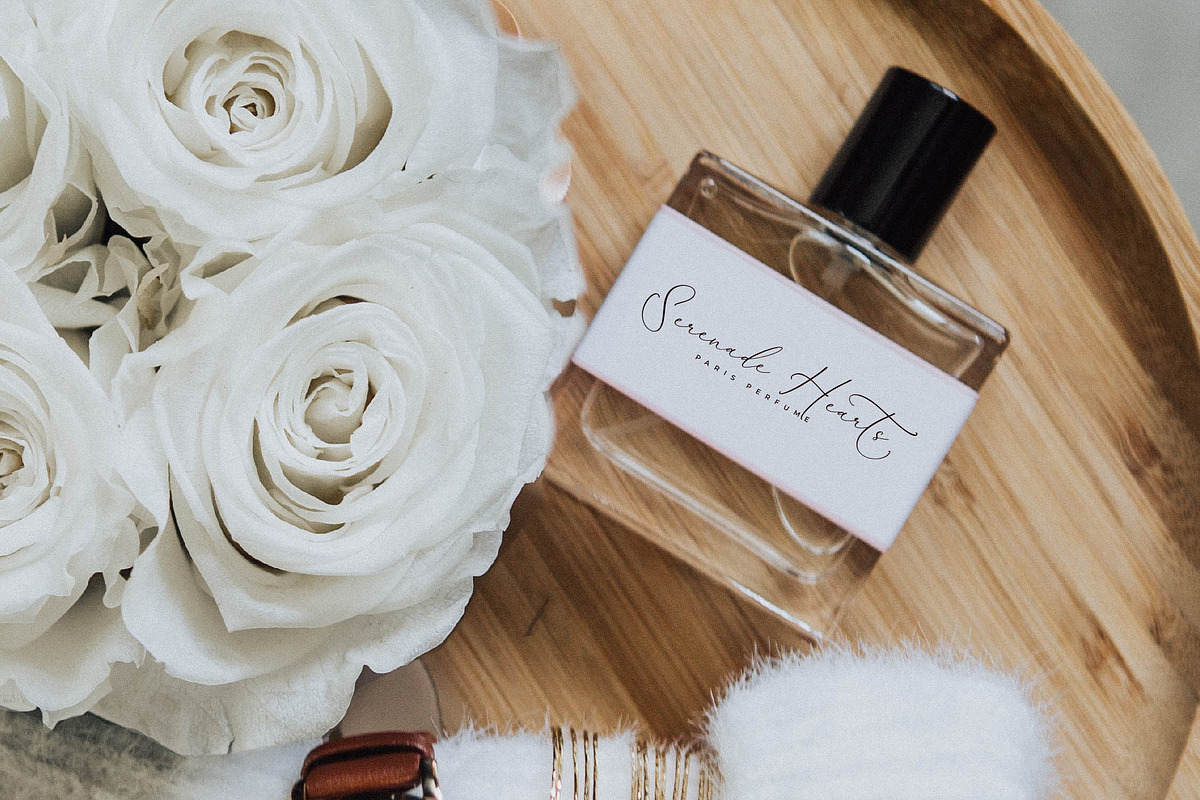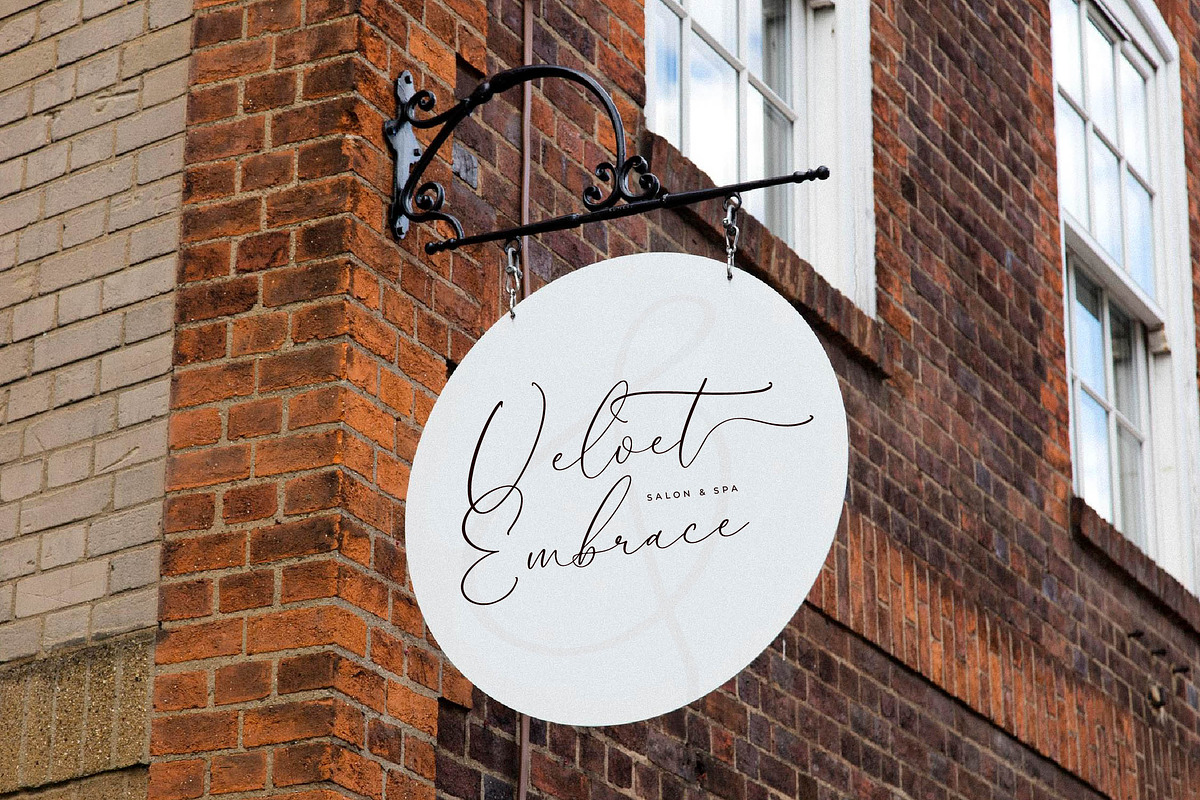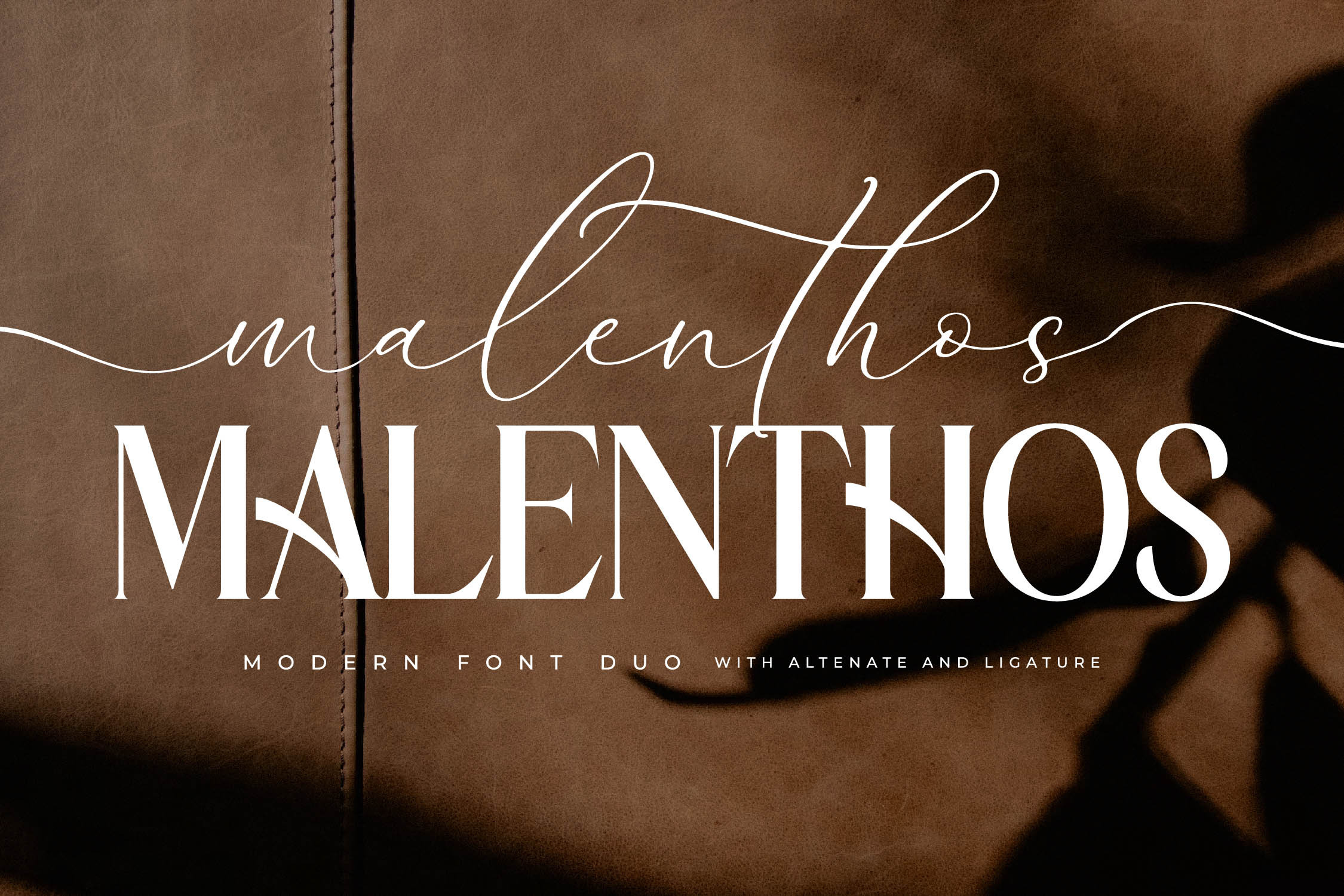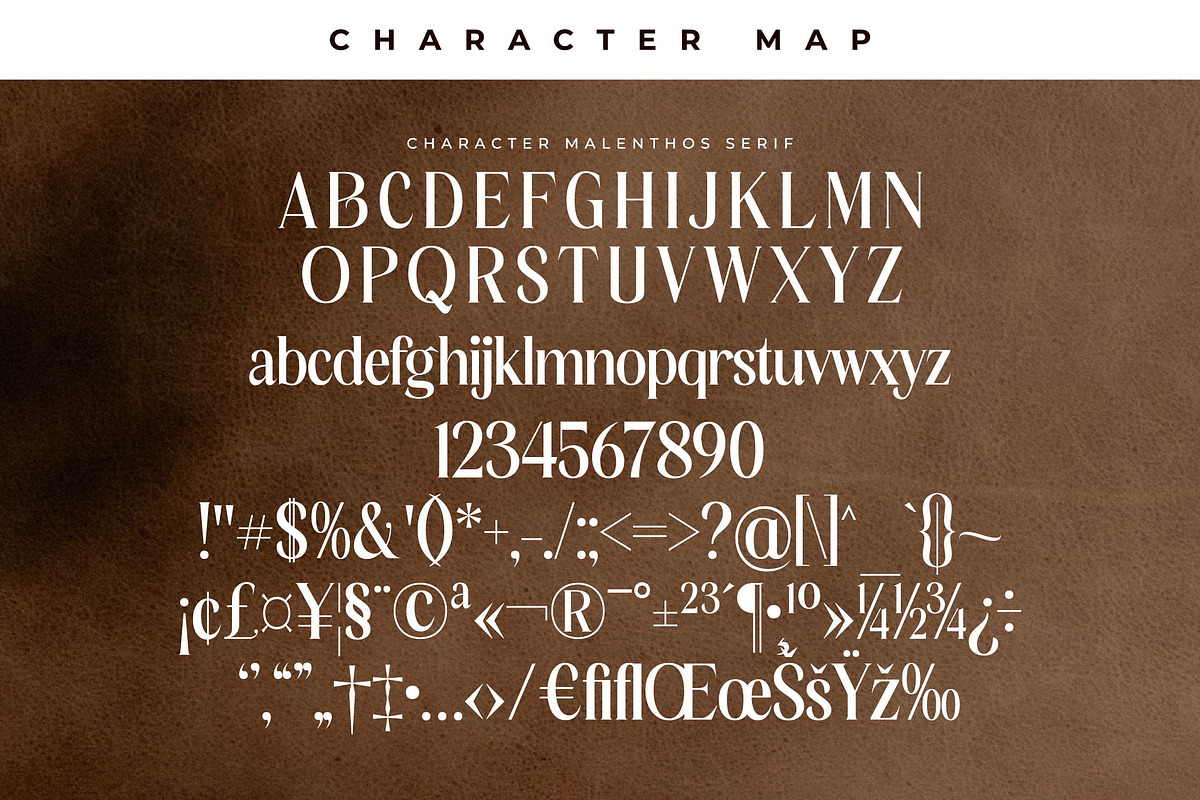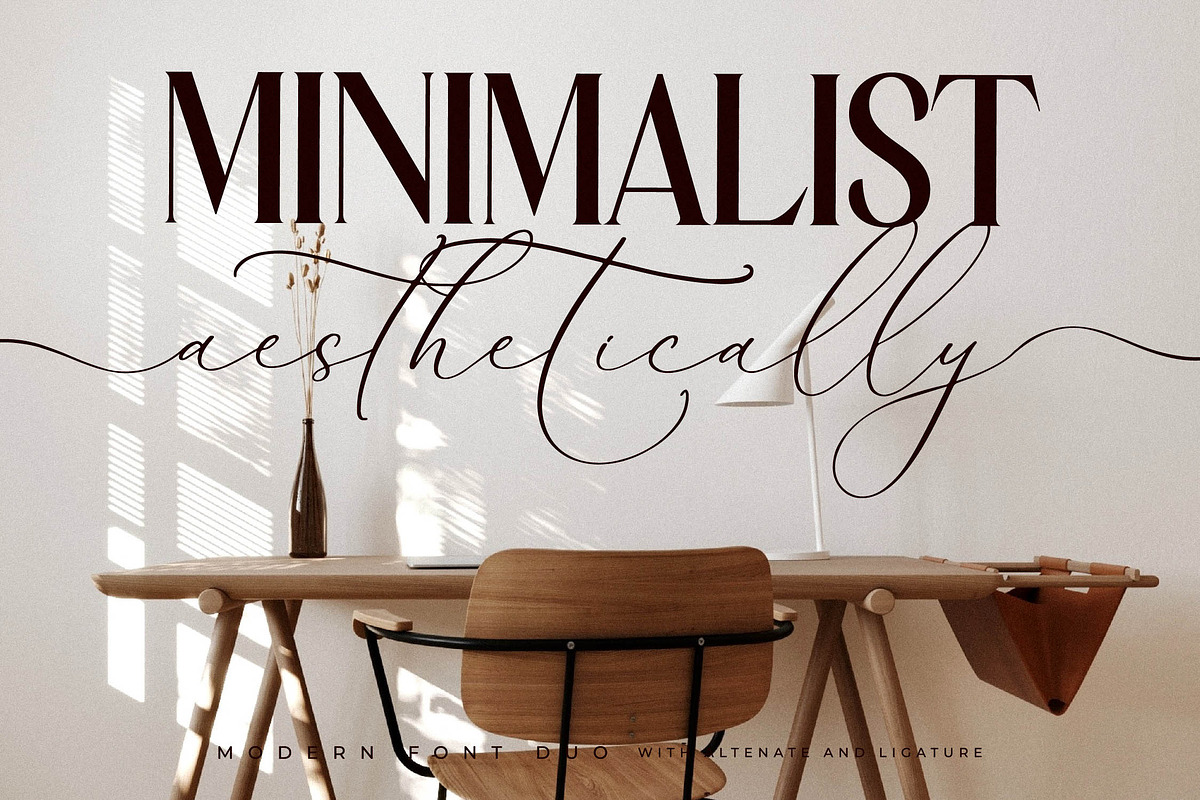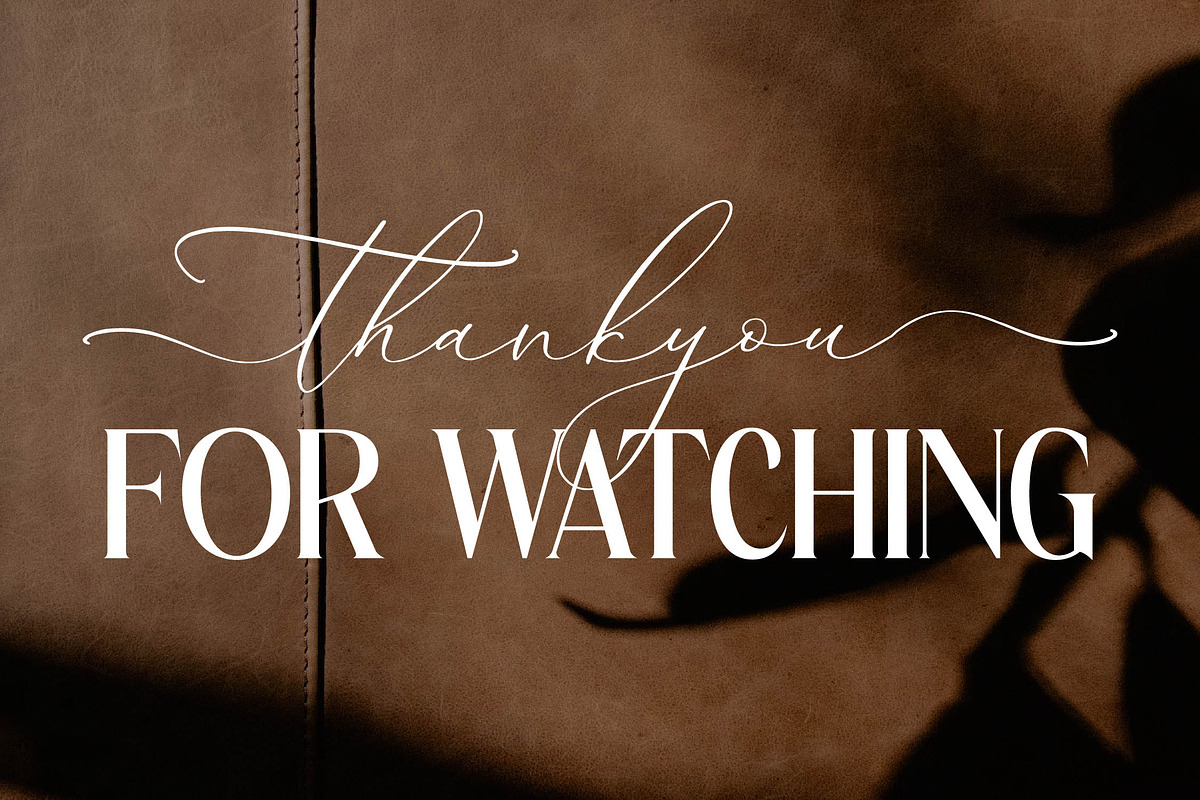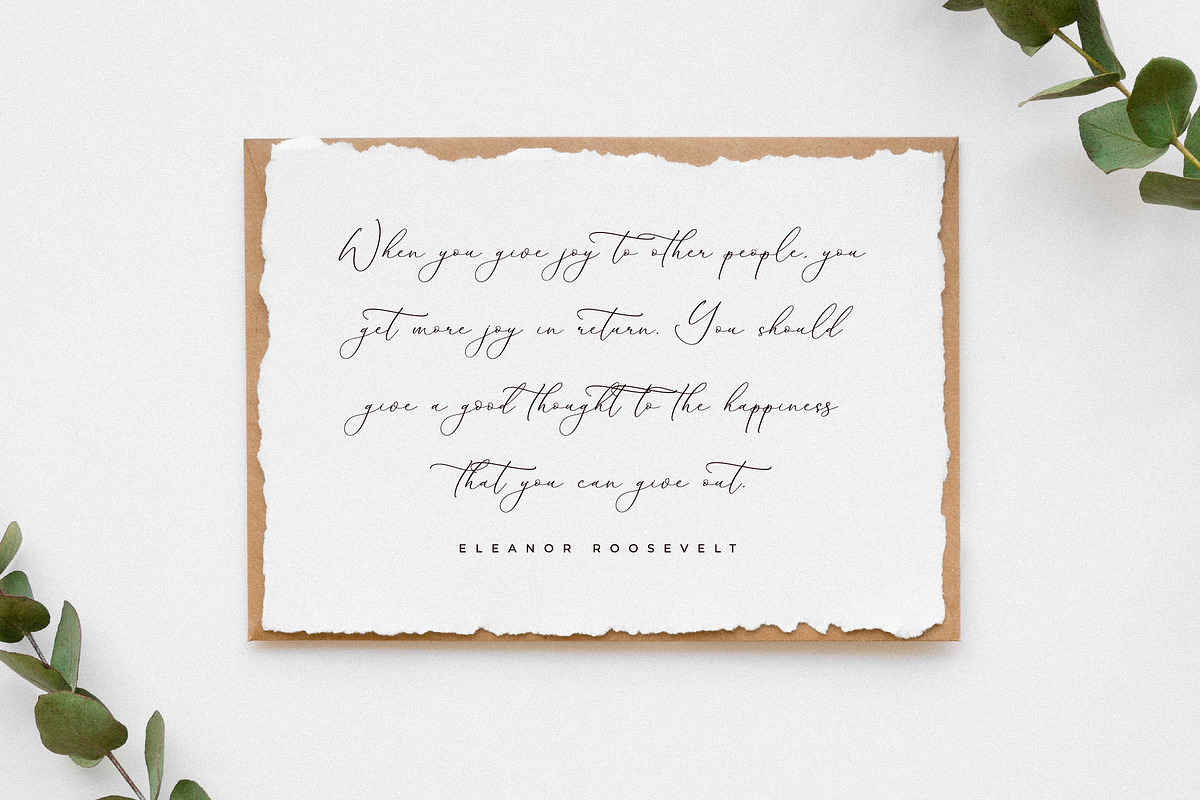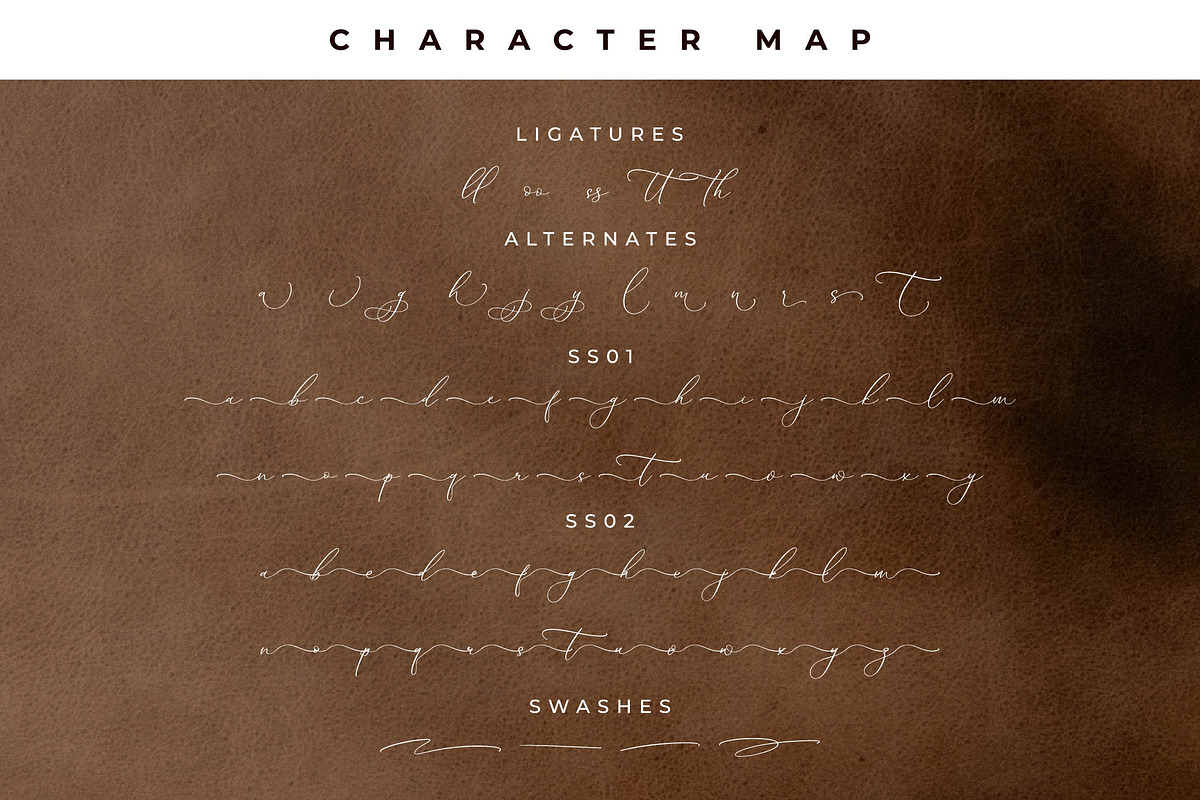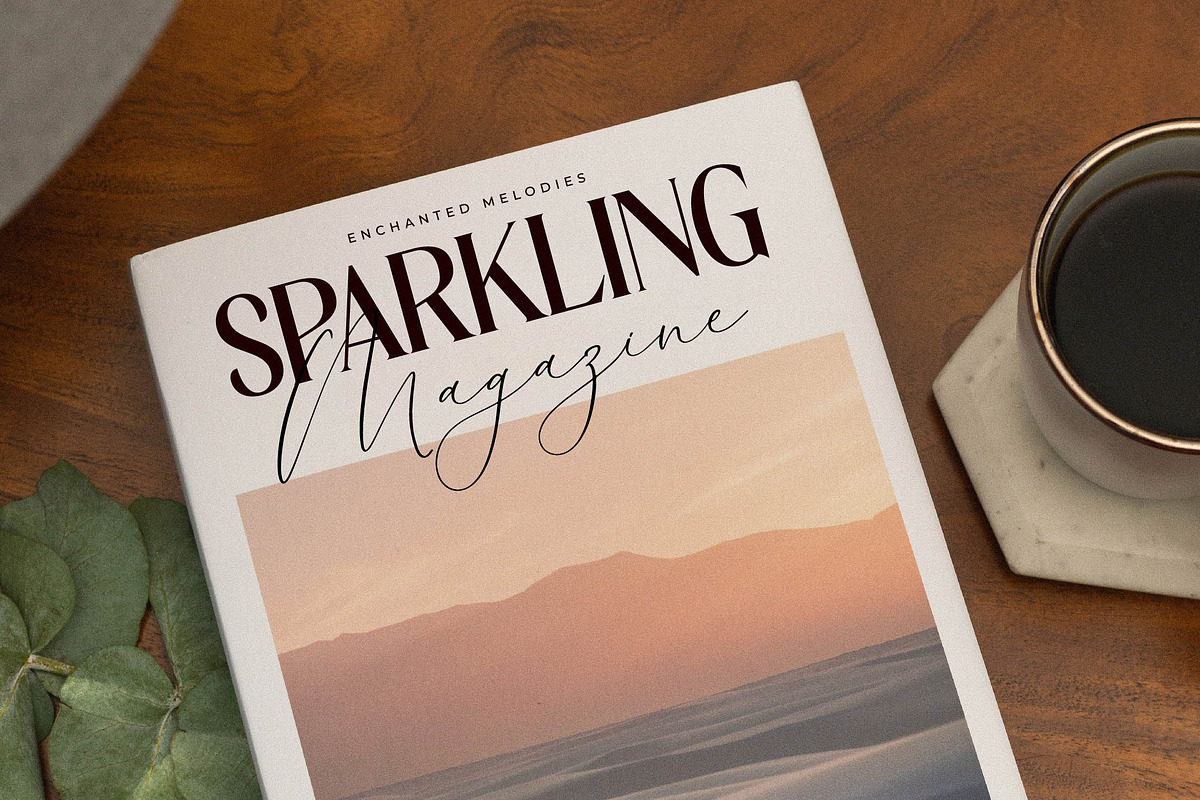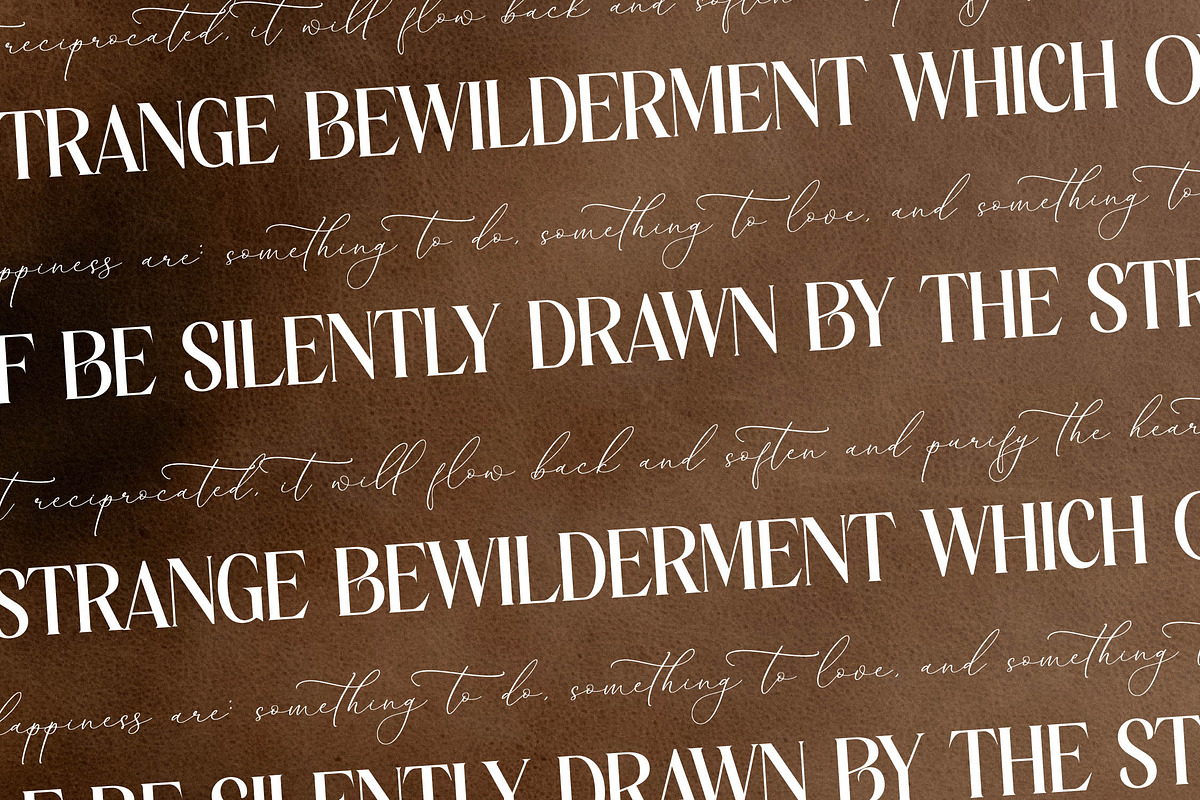
Malenthos Modern Font Duo
A serif and script typeface that has own unique style & modern look. This typeface is perfect for an elegant & luxury logo, book or movie title design, fashion brand, magazine, clothes, lettering, quotes, and so much more.